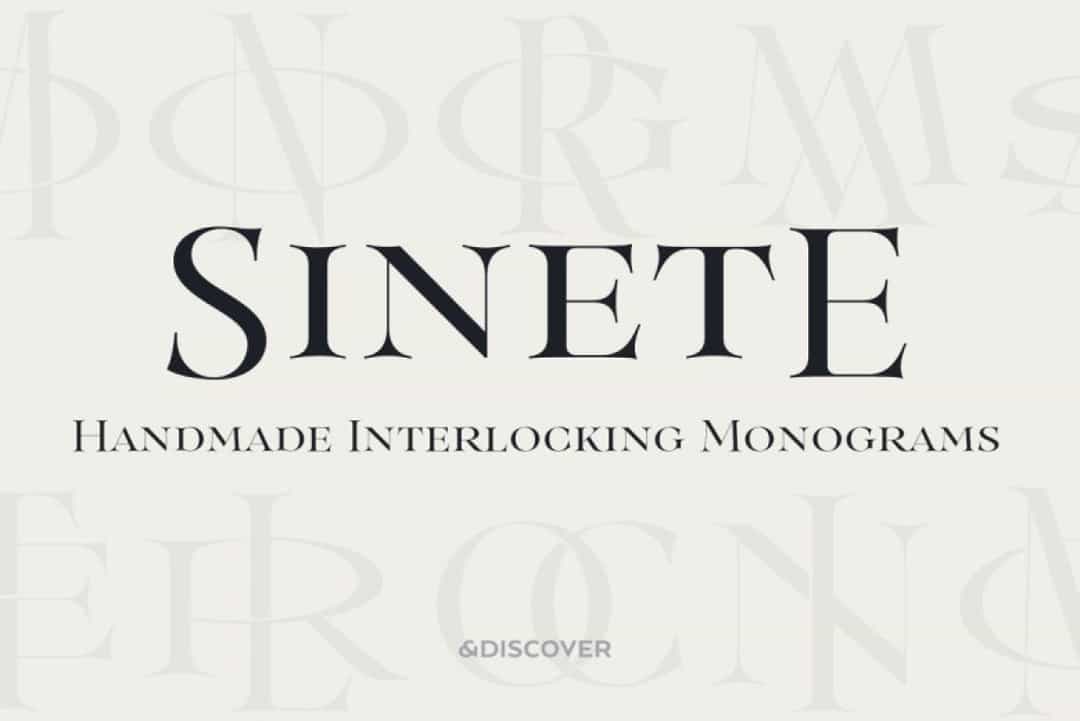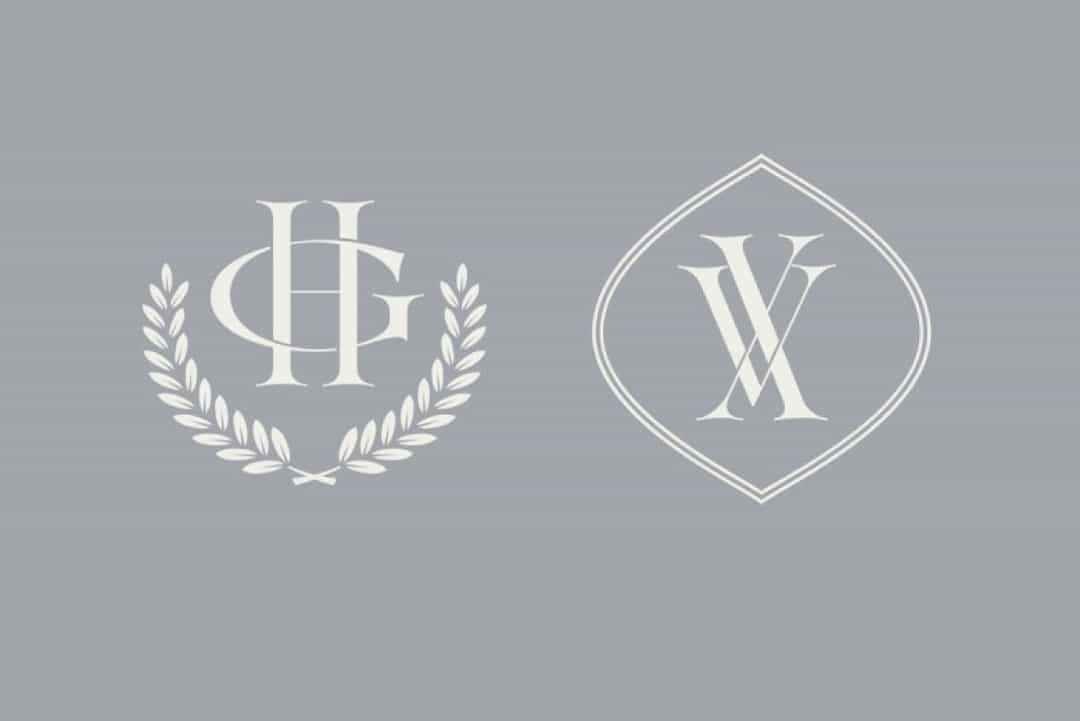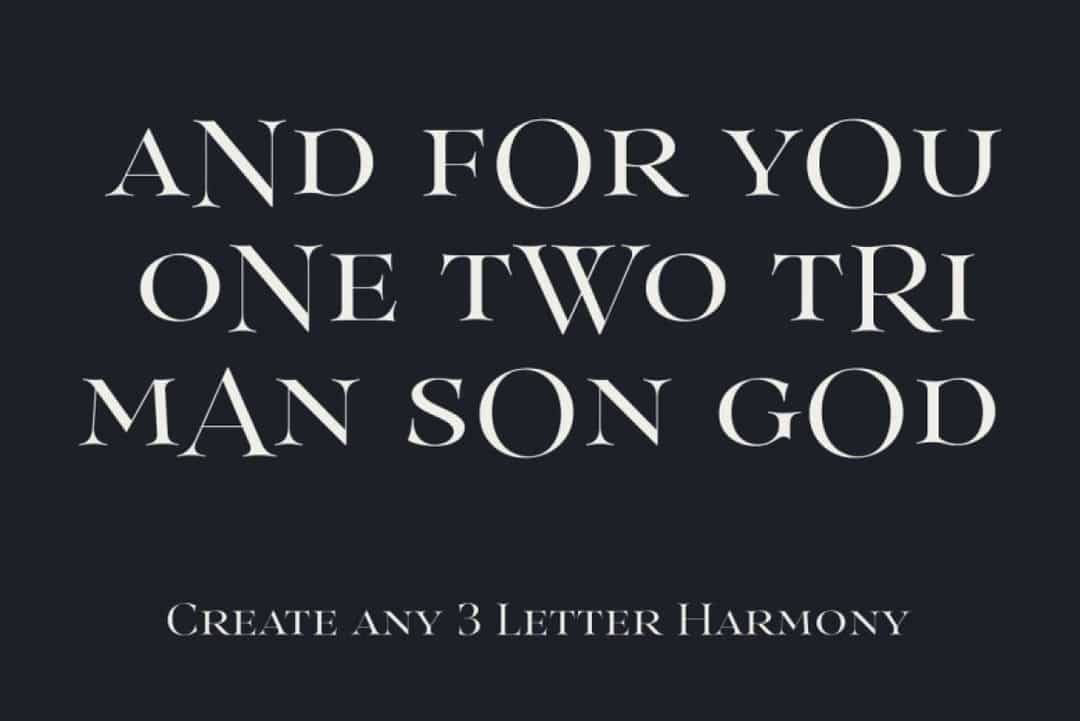
Sinete is not only an exquisite typeface; it also makes an incredible monogram set! With more than 350 handcrafted interlocking monograms available to use with monograms, any two letter combination is possible using Sinete monograms – as are fashionable three letter combinations! Additionally, thirty numeral ligatures and frames of various sizes come included to customize and finish off this monogram design experience.